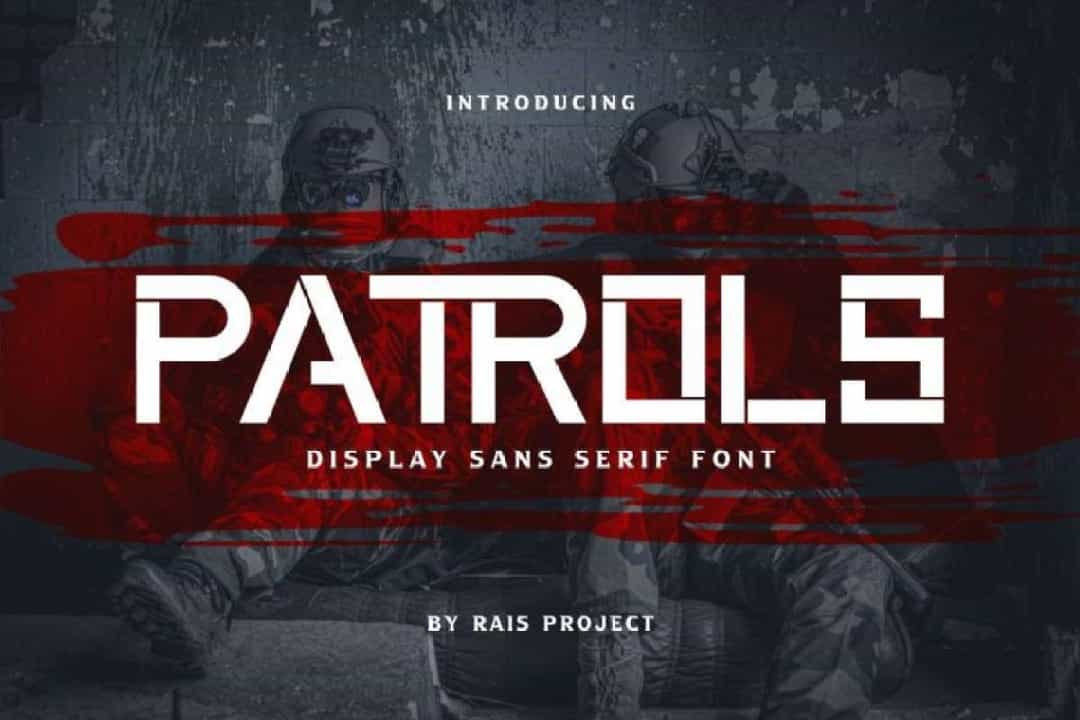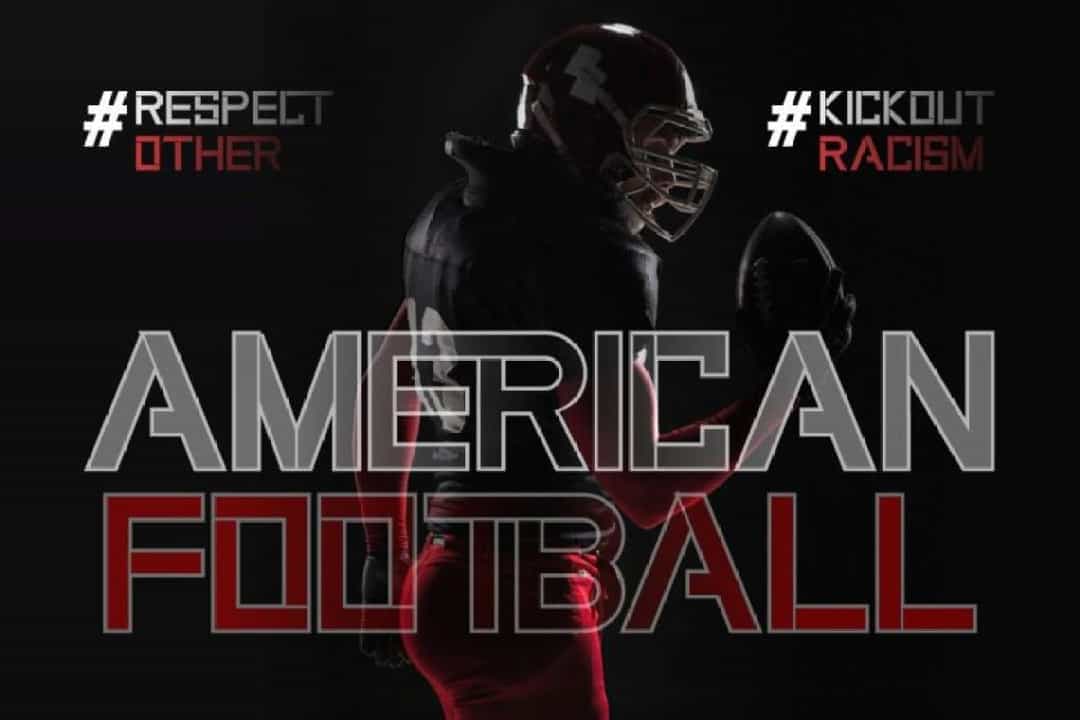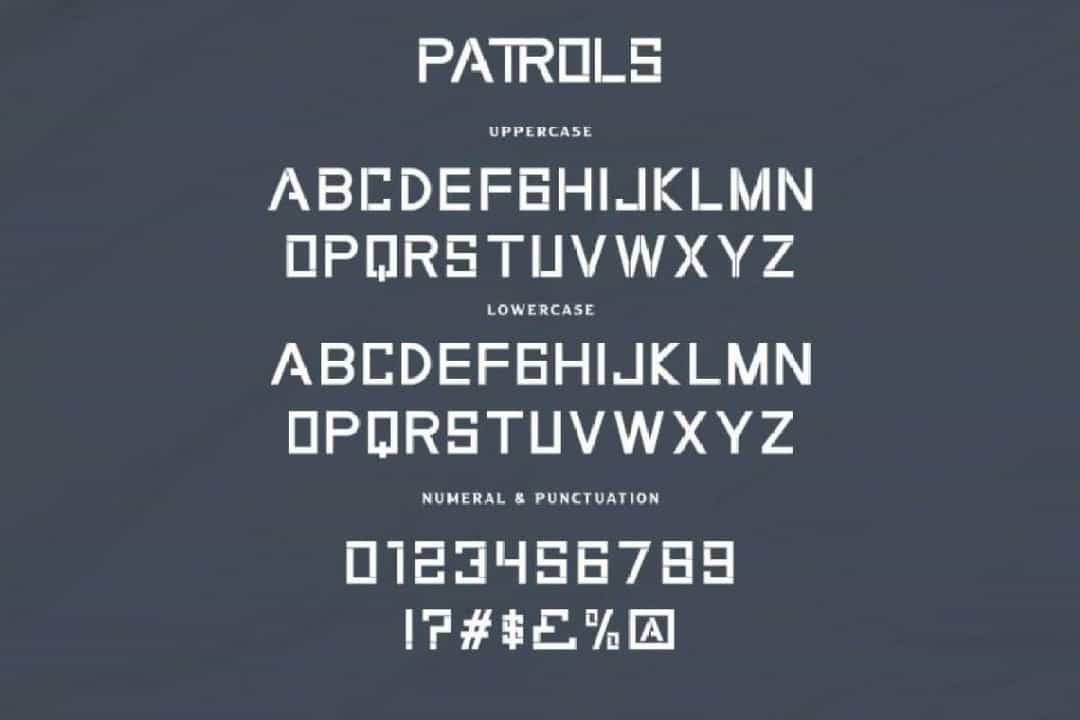
Discover Patrols Font, part of the Sans Serif Display collection—a versatile and unique font perfect for adding a personal touch to your projects. Download it for free and enjoy crafting designs with style, from invitations to social media posts. This font is available exclusively for personal use, giving you the freedom to create without limits. Unlock your creativity with Patrols Font today!
Patrols Font is remote-made by RaisProject Team in Indonesia and released for sale for purchase. Featuring its unique, contemporary, and fashionable design, it was created specifically to be handcrafted to meet any project in mind, such as headlines, promotional events, branding advertising magazines, signage invitations stationery social media post labels or any other need that requires a striking font with strong originality and strong designs.